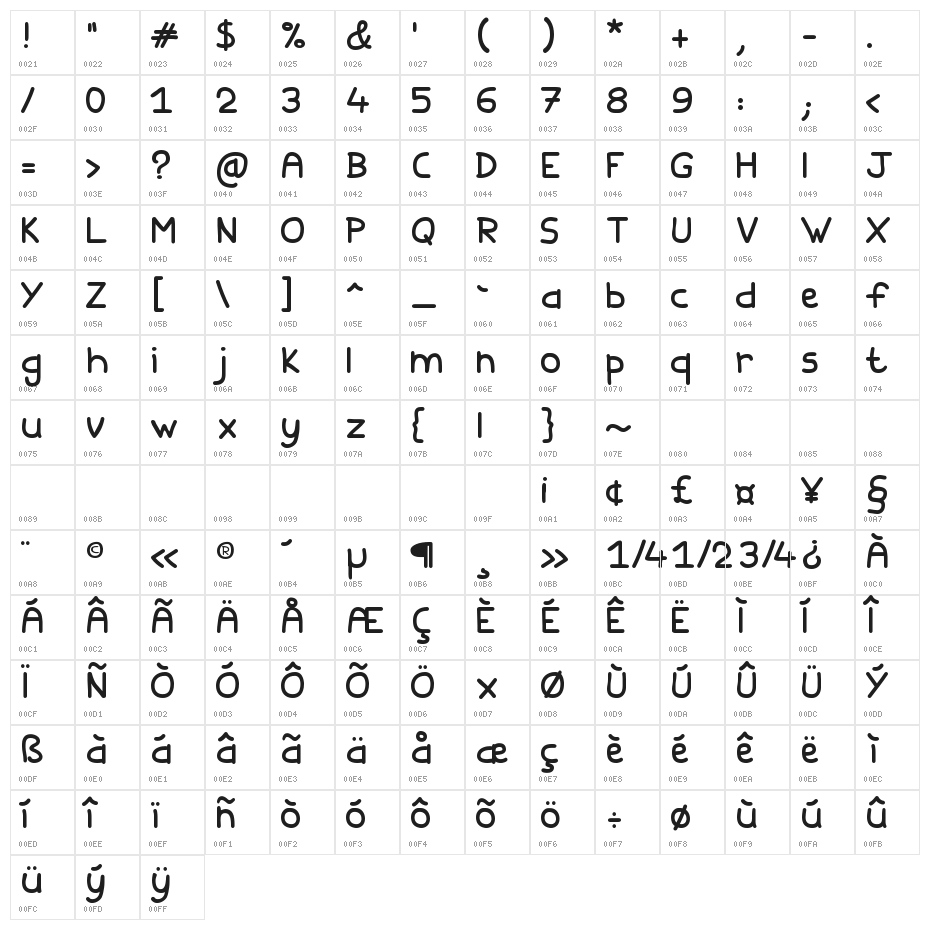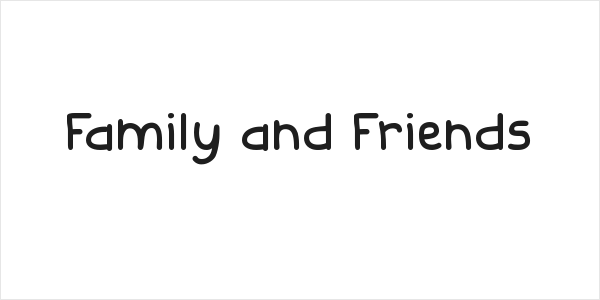
Family and Friends Font
Family and Friends Description
This font features a playful and friendly design, characterized by rounded edges and a casual, handwritten style. The letters are evenly spaced with a consistent stroke width, giving it a clean and approachable appearance. The uppercase and lowercase letters maintain a uniform height, contributing to its readability. Numbers and special characters are designed with the same playful aesthetic, making it suitable for informal and creative projects. The overall look is modern yet whimsical, ideal for conveying warmth and approachability.
| Overall Style | Playful, Modern |
| Proposed Projects | Ideal for children's books, greeting cards, playful branding, and informal digital content. |